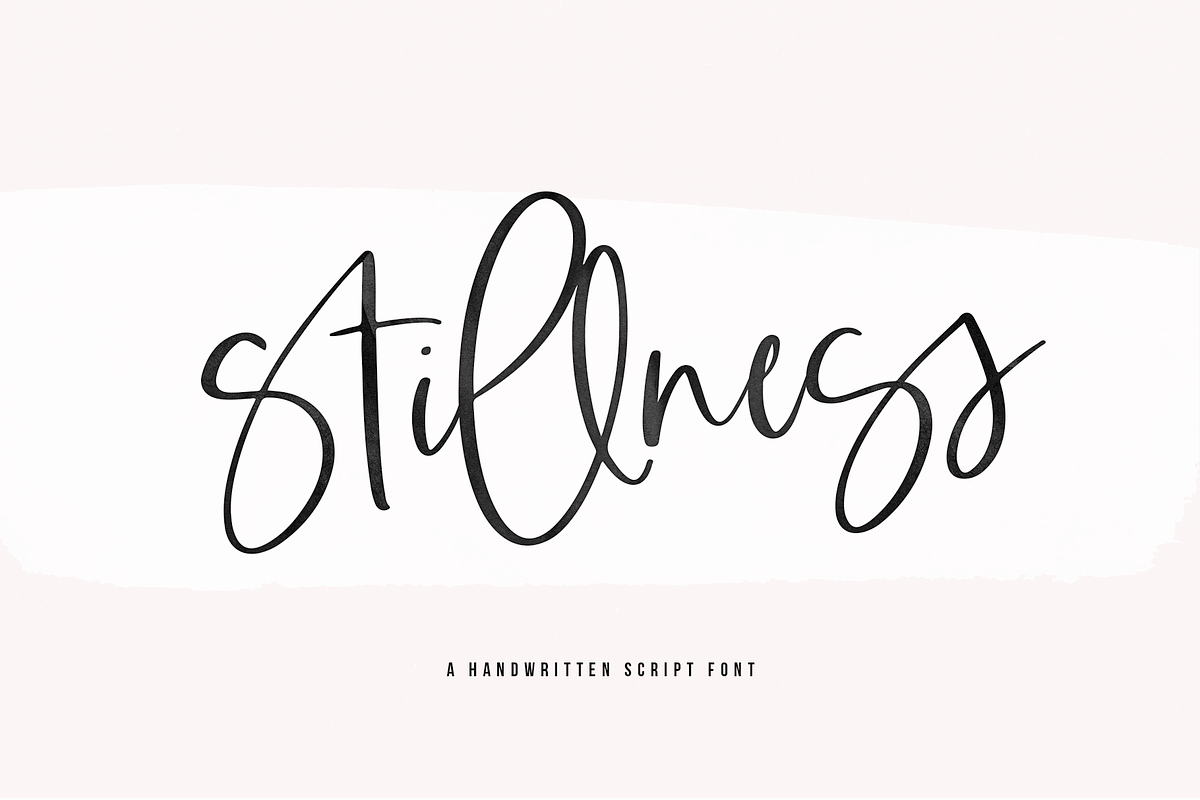
Add elegance and calm sophistication to your designs with Stillness – Modern Script Font Free Download. This flowing, hand-lettered typeface blends modern script styling with graceful curves, making it ideal for wedding invitations, branding, social media content, beauty packaging, and lifestyle blogs.
Stillness features smooth, natural strokes and beautiful ligatures that create a romantic and refined look. It includes uppercase and lowercase letters, numerals, punctuation, and stylistic alternates—perfect for testing soft, elegant layouts that need a personal, luxurious touch.